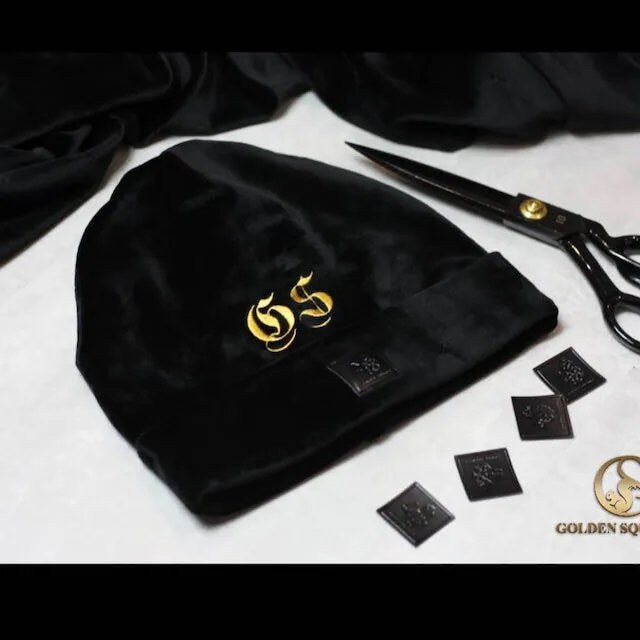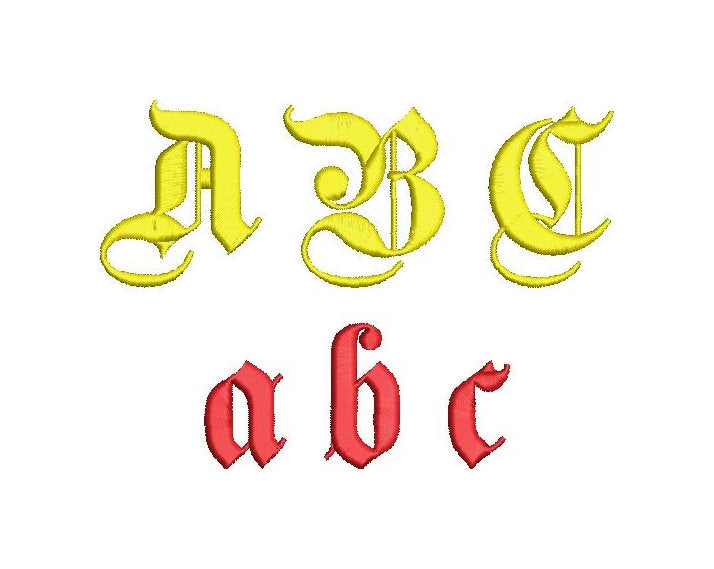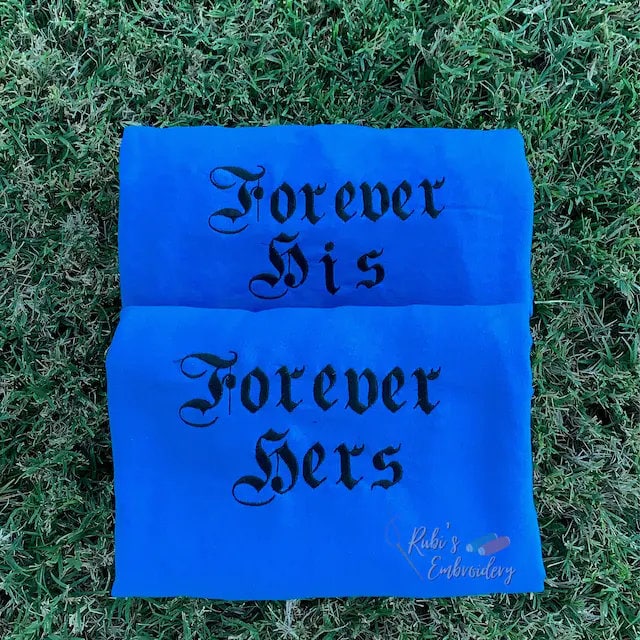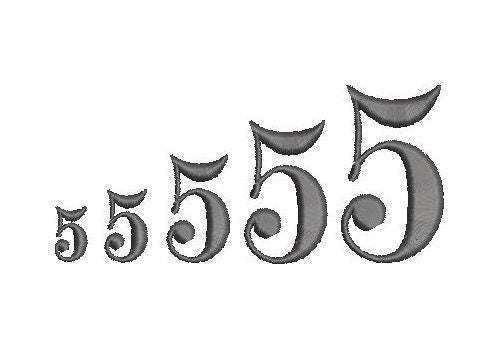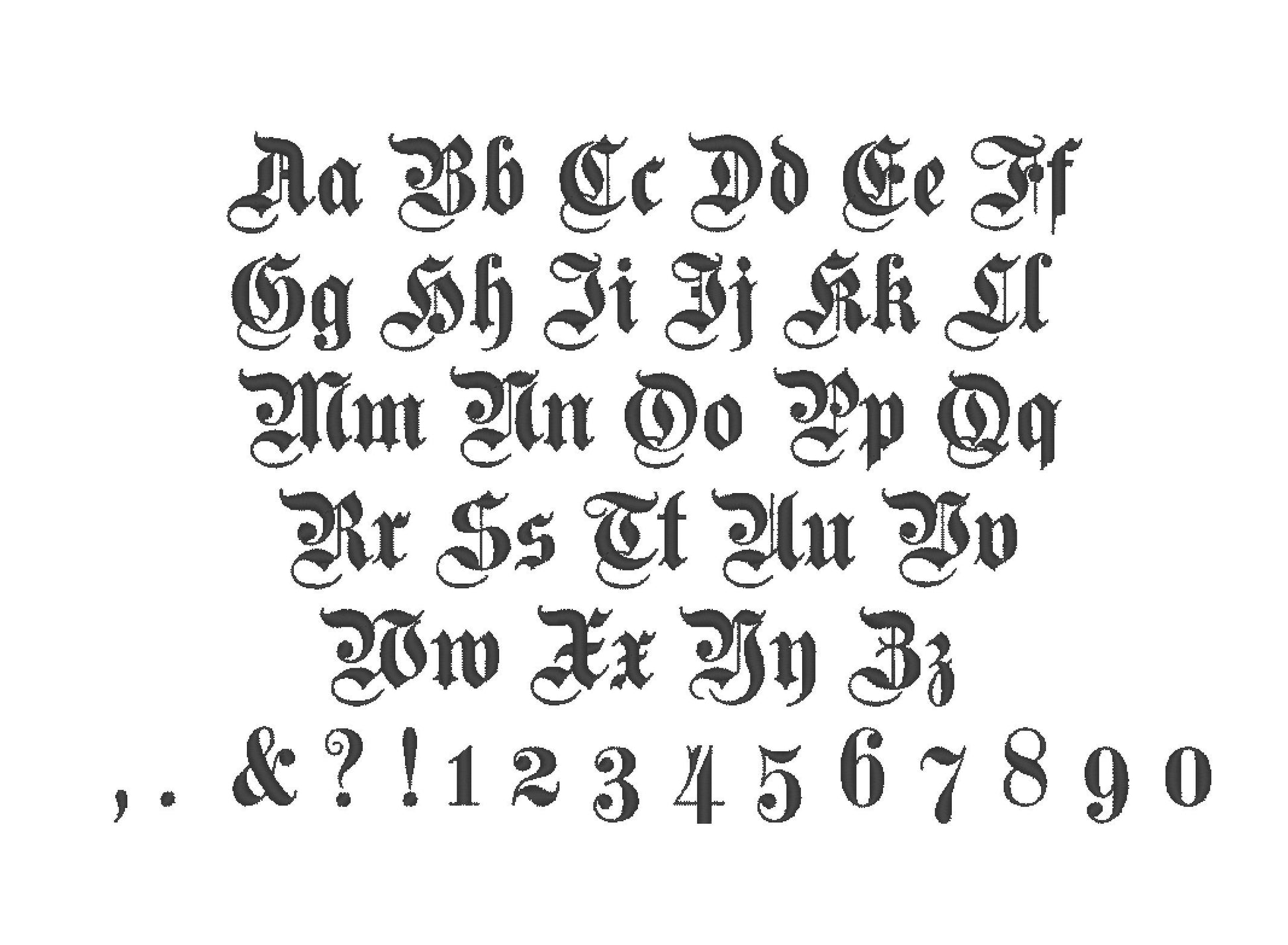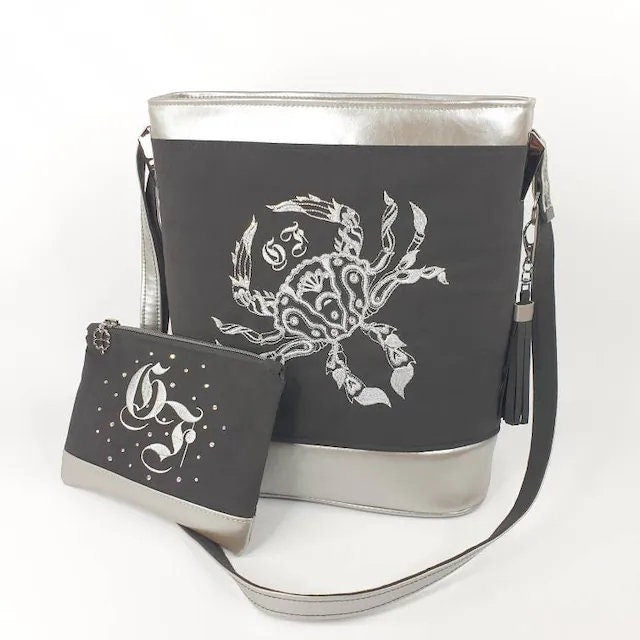
this font stitched out great
stitched amazing! was perfect for what i needed it for
Fonte muito bonita, muito obrigada
Love this Design, very easy to use.
Very nice font! Used it for the Names on my daughter's and her friends' birthday party t-shirts! Nice effect, was using glow in the dark thread, so when the I turned on the black light, all of my daughter's friends LOVED the fact they could see each other's names (with the pumpkin design) while they were dancing! Lots of fun and creative for Halloween (gothic/victorian) style designs!!! Very nice/calligraphy effect of the font! LOVE IT!!!
Came out super clean would recommend!
First of all 10 stars for the customer service. This font is so nice and clean. I had no problems on my Janome 400e. Most definitely will refer this seller.
les motifs sont très beaux, et la broderie est rapide
Amazing, I love it :D
Stitched out BEAUTIFULLY! Really well digitized to prevent thread breakage and puckering.
Its just what I was looking for!
This worked well for what we needed.
Tolle Datei. Gerne wieder
Just what I needed and it stitched out perfectly!
Schöne Buchstaben. Das entpacken der Datei hat ewig gedauert
Very easy to use and manage! Met my expectations and looks amazing on apparel.
It stitched out really good. Looks so good
Super... stickt wunderbar und vieke Größen vorhanden
Amazing quality